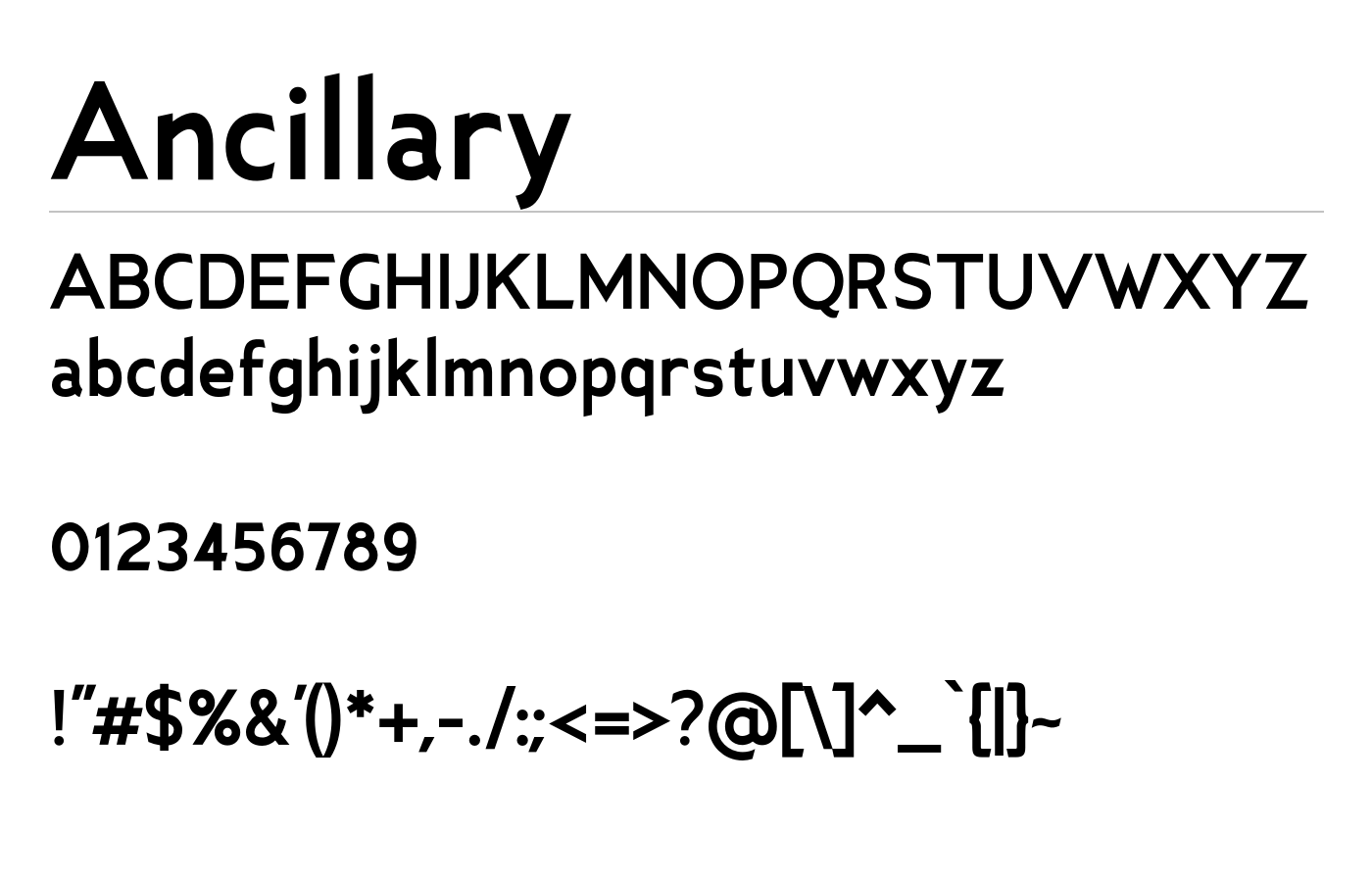
Ancillary is a clean and modern sans serif font with a slightly condensed width and a medium weight that offers good readability. Its design features a large x-height with simple, geometric letterforms and subtle distinctive details, making it versatile and approachable. Ideal for contemporary branding, editorial use, and digital interfaces, Ancillary combines clarity with a touch of personality for both headlines and body text.
Ancillary Font
About Ancillary Font